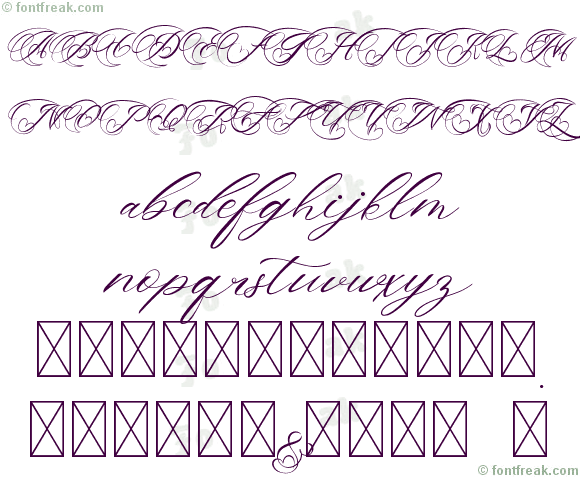
The Bellinda Demo
About The Bellinda Demo
The Bellinda Demo font by Burhan Afif is a beautifully crafted script typeface that exudes elegance and sophistication. This font features a delicate stroke weight with graceful curves and ornate flourishes, making it a standout choice for various design applications. The contrast between thick and thin lines adds a dynamic quality, while the generous spacing between characters ensures readability, even in intricate designs. The decorative elements, including swirls and loops, contribute to its refined aesthetic, making it ideal for projects that require a touch of luxury.
This versatile font is particularly well-suited for wedding invitations, where its romantic style can enhance the overall theme. Additionally, it works beautifully on movie posters, adding a sense of drama and flair to titles and taglines. Restaurant menus can benefit from The Bellinda Demo's elegance, making each dish feel like a gourmet experience. Content creators looking to elevate their branding will find this font perfect for logos and social media graphics that demand attention and sophistication. Graphic designers, small business owners, and event planners will appreciate the versatility and charm that this font brings to their projects.